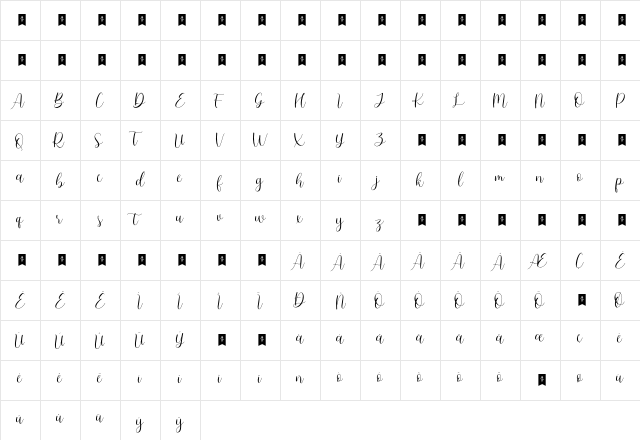
Mother Vanilla Normal
Design Context for Mother Vanilla Typeface
Mother Vanilla is a composed and adaptable typeface that performs quietly and consistently across a wide range of design contexts.